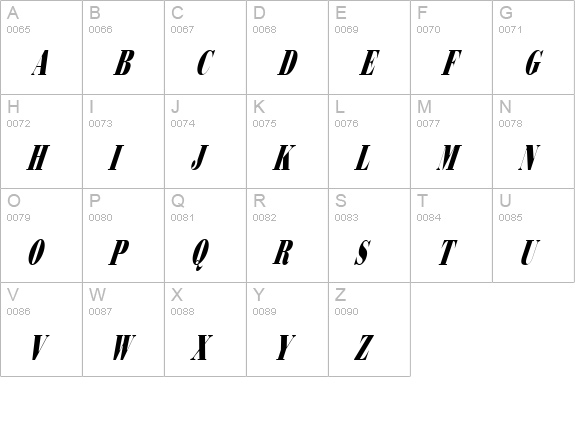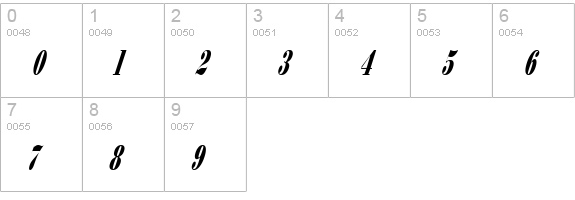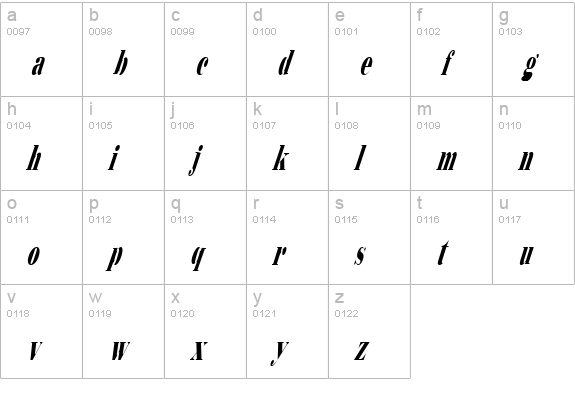
Bodidly Italic Font Details
Bodidly Italic is a distinctive, italic variant in the Bodidly typeface family \xE2\x80\x94 well suited to design and typography projects.
Introducing Bodidly Italic, a sleek and stylish font that exudes sophistication and elegance. With its unique italicized design, Bodidly Italic adds a touch of flair to any project or design. The smooth curves and flowing lines of this font make it perfect for adding a touch of modernity to your work. Bodidly Italic is not only visually appealing but also highly versatile, making it suitable for a wide range of design projects. Whether you are creating a logo, poster, website, or any other design, Bodidly Italic will help you stand out from the crowd. The best part? Bodidly Italic is completely free to download at FontsMarket.com. So why wait? Add this stunning font to your collection today and take your designs to the next level.